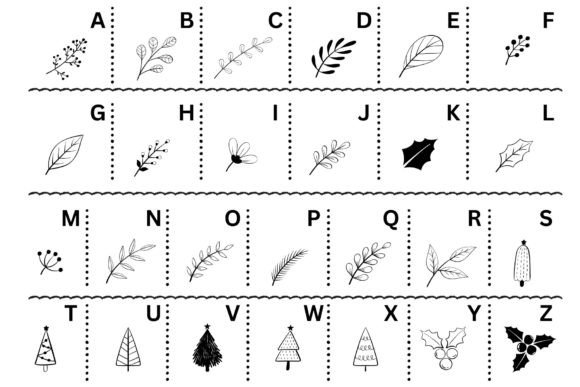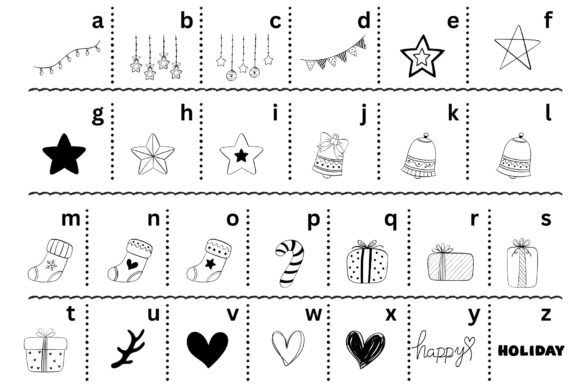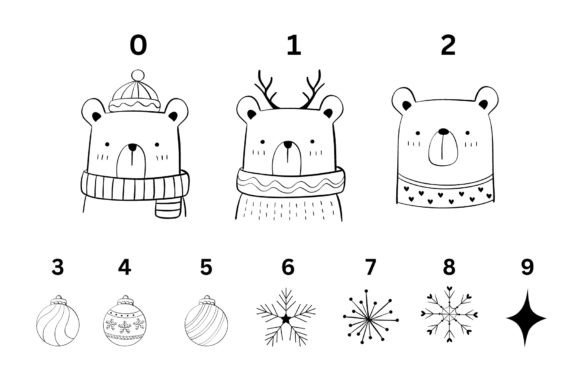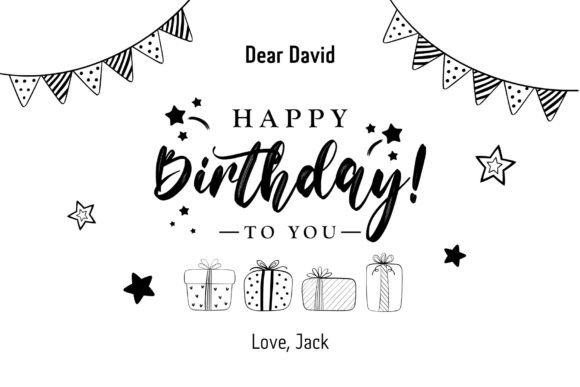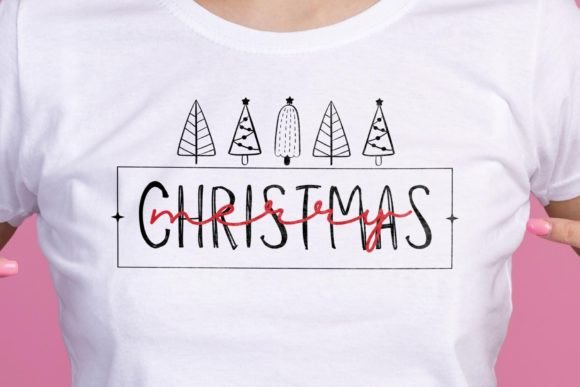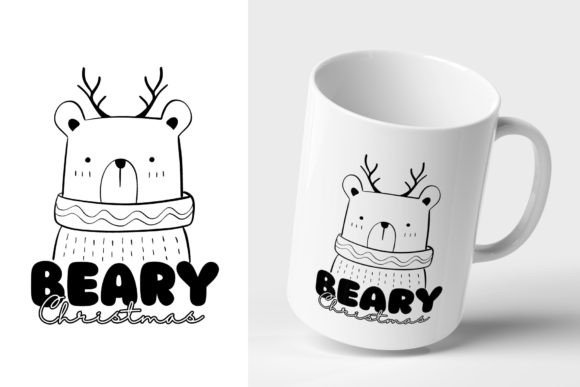
Get Ready to Deck the Halls with Fox Xmas Doodle Font
Have you ever found yourself in the midst of a creative frenzy, surrounded by scraps of paper, glitter, and half-finished projects? It’s that magical time of year when the holiday season sparks our imagination and inspires us to create something truly special. For designers and crafty enthusiasts alike, the challenge is to bring our ideas to life in a way that’s both unique and festive.
Enter the Fox Xmas Doodle Font, a delightful dingbat font designed specifically for the holiday season. With its playful, whimsical style, this font is the perfect addition to any craft project, design, or planner. Its versatility makes it a valuable asset for designers, allowing them to add a touch of holiday magic to their work. Whether you’re creating activity books, diaries, or simply want to add a festive flair to your designs, the Fox Xmas Doodle Font is sure to make your creations stand out.
Fox Xmas Doodle Font Key Features
- Font Type: Hand-Drawn, Doodle Font
- Character Count: 100+ Characters, including uppercase and lowercase letters, numbers, and punctuation
- Unique Characteristics: Whimsical, festive design with a mix of bold and delicate lines, perfect for Christmas-themed designs and projects
Review of Fox Xmas Doodle Font
The Fox Xmas Doodle Font is a festive addition to any holiday design project. ✨ Its playful and whimsical style is perfect for capturing the magic of Christmas. The font is highly customizable, allowing designers to adjust the size, color, and texture to suit their needs.
One of the standout features of the Fox Xmas Doodle Font is its versatility. ✨ It can be used for a wide range of projects, from greeting cards and posters to social media graphics and web designs. The font also includes a variety of decorative elements, such as stars, bells, and trees, that can add an extra touch of holiday cheer.
While the Fox Xmas Doodle Font is a great addition to any holiday design project, there are a few limitations to consider.
- ⚠️ Limited character set: The font only includes uppercase and lowercase letters, as well as a few special characters, which can make it difficult to use for longer blocks of text.
- ⚠️ May not be suitable for all design styles: The font’s playful and whimsical style may not be suitable for more formal or minimalist design projects.
Overall, the Fox Xmas Doodle Font is a fun and festive addition to any holiday design project. While it may have some limitations, its versatility and customizability make it a great choice for designers looking to add a touch of holiday cheer to their designs.
Use the Fox Xmas Doodle Font for:
* Holiday-themed invitations and cards
* Seasonal social media posts and graphics
* DIY gift tags and labels
Remember to adjust font size and color to ensure readability and visual balance.